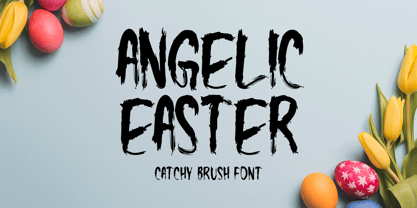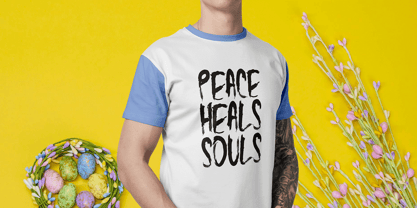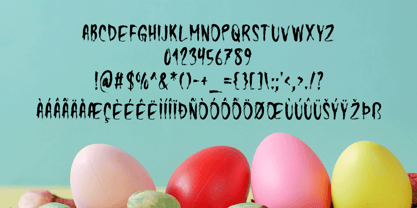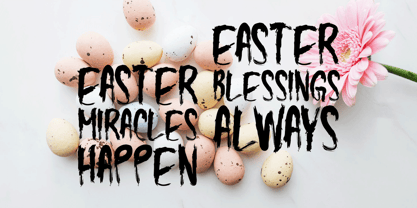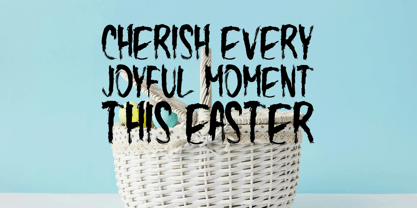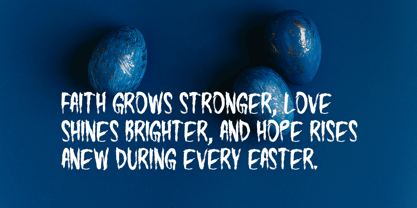
Angelic Easter
by Seemly Fonts
The Angelic Easter Font Family was designed by Md. Sohail Bhuiyan and published by Seemly Fonts. Angelic Easter contains 1 styles. More about this family
Angelic Easter is a beautifully handcrafted brush display font that brings a touch of elegance and creativity to any project. Whether you're designing stationery, logos, t-shirts, or print materials like posters and flyers, this font adds a unique artistic flair. It’s also perfect for digital applications, including website headers, music covers, image sliders, and photo frames, ensuring your designs stand out with style and personality.
Designers: Md. Sohail Bhuiyan
Foundry: Seemly Fonts